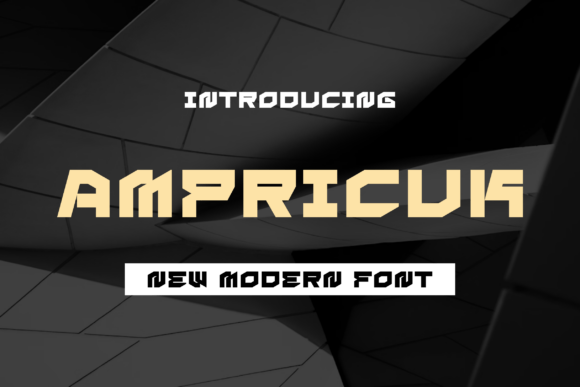
The Power of Typography: Unlocking Your Creative Potential
Have you ever stared at a blank canvas, eager to bring your vision to life, but struggling to find the perfect font to convey your message? That’s a feeling we’ve all been there, and it’s where the magic of Ampricuk Font comes in. This innovative sans serif font is specifically designed to elevate your creative ideas and take your designs to the next level.
Whether you’re a seasoned designer or just starting out, Ampricuk Font is a valuable addition to your toolkit. Its unique design elements and versatility make it perfect for a wide range of projects, from branding and marketing materials to digital interfaces and publications. With Ampricuk Font, you’ll be able to communicate your message with clarity and style, setting yourself apart from the crowd and achieving your design goals.
Ampricuk Font Key Features
- Size: The font family consists of multiple weights, ranging from Thin to Black, providing flexibility for various design applications.
- Resolution: Ampricuk Font is optimized for high-resolution displays, making it suitable for use in digital media, such as websites, mobile apps, and print materials.
- Unique Characteristics: This font features a unique blend of modern and vintage elements, with intricate details and subtle texture, giving it a distinctive look that sets it apart from other sans-serif fonts.
- Language Support: Ampricuk Font supports a wide range of languages, including Latin, Cyrillic, and Greek, making it a versatile choice for global design projects.
- Font Pairing: Ampricuk Font is designed to be paired with other fonts, allowing designers to create unique and harmonious typographic combinations that enhance the overall visual impact of their designs.
Designer Review: Ampricuk Font
Ampricuk Font has been a mixed bag for me. On one hand, there are some things that really shine ✨
- Unique Character Set: The font has a distinct, quirky feel to it that sets it apart from more traditional fonts.
- Legibility: Despite its unusual design, Ampricuk Font remains surprisingly easy to read, even at smaller font sizes.
However, there are also some limitations that I’ve encountered ⚠️
- Limited Language Support: Ampricuk Font appears to be optimized for Latin-based languages, and support for non-Latin scripts is limited.
- Lack of Italic and Bold Variants: While the font itself is visually striking, the lack of italic and bold variants can make it less versatile in certain situations.
- Not Ideal for Small Text: At very small font sizes, Ampricuk Font can become difficult to read, due to its complex design.
Overall, I’d say that Ampricuk Font is a great choice for designers looking for something a little unconventional. While it may not be perfect, its unique character and legibility make it a solid addition to any design arsenal.
Tips for Getting the Most Out of Ampricuk Font
Use Ampricuk Font for headings and titles to add a touch of elegance and sophistication.
Experiment with different font sizes and colors to create visual hierarchy and emphasis.
Combine Ampricuk Font with other fonts to create a unique and eye-catching typography style.
Use Ampricuk Font for:
Business cards and brochures
Food and beverage branding
Any design project that requires a touch of luxury and sophistication